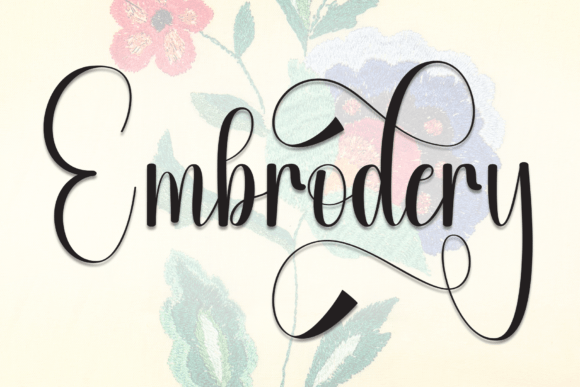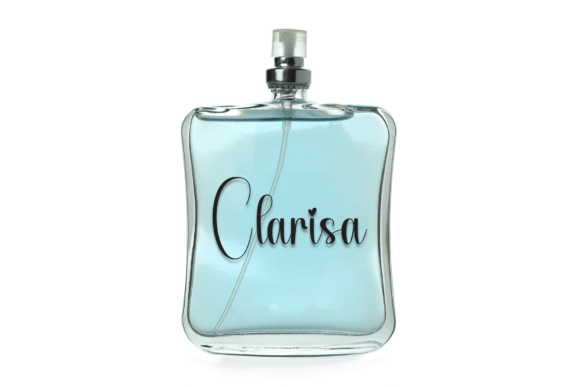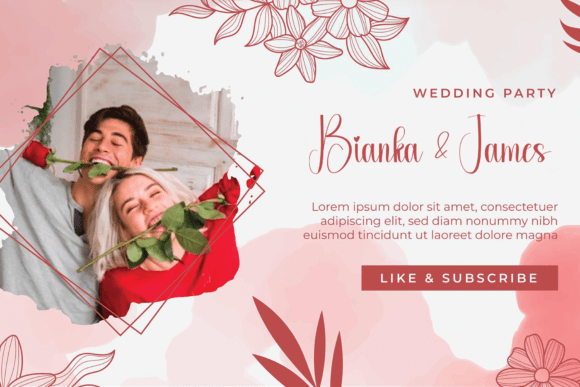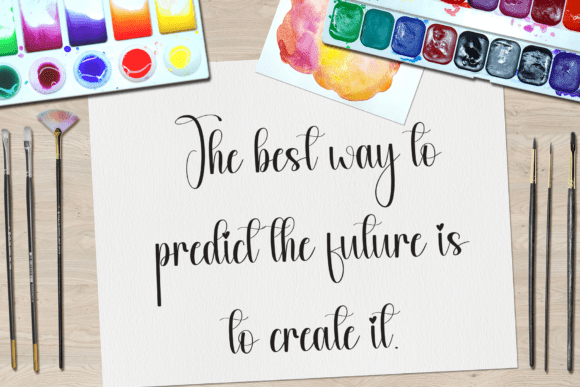
Embrodery Font: Elegant Script for Signature Logos & Wedding Designs
About the Embrodery Font
We are excited to introduce Embrodery Font, a must-have typeface for any serious designer. Embrodery is a stylish handwritten script font that blends modern elegance with a playful touch. Its fluid strokes and charming curves bring a personal feel to any design. Ideal for logos, packaging, and invitations, this typeface adds warmth, sophistication, and creativity to every project.
Embrodery excels in applications requiring a touch of handcrafted charm. Logos, wedding invitations, and short-form marketing materials will benefit from its elegant playfulness. It’s also well-suited for packaging designs where a personalized, high-end feel is desired. However, avoid using it for large blocks of body text or UI elements; its stylistic nature compromises readability in extended passages.
Pairing Embroidery with a clean sans-serif like Montserrat or a geometric sans-serif like Futura will create a balanced contrast, grounding the script’s fluidity. For a more traditional feel, consider pairing it with a classic serif font like Garamond or a slightly more modern serif like Playfair Display. These pairings provide a sophisticated counterpoint to Embroidery’s playful energy.
Embrodery’s personality is best described as sophisticated yet approachable; elegant but not stuffy. Brands focused on handcrafted goods, artisanal products, or events with a romantic or celebratory atmosphere would find it a perfect fit.